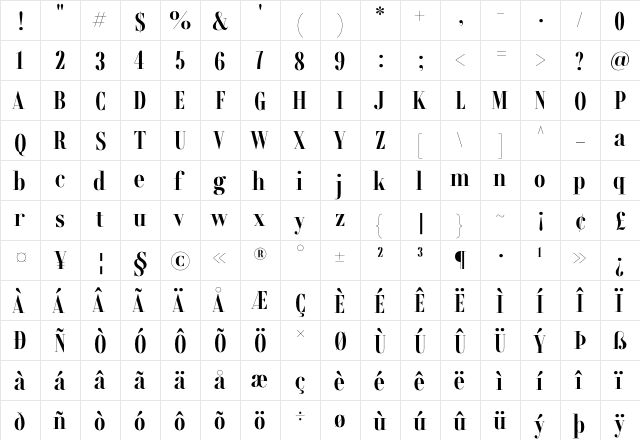
Rondal Bold
Bold ·  Daler Mukhiddinov ·
DesignerDaler Mukhiddinov
Design Context for Rondal Typeface
Rondal takes a measured approach to typography — its balanced proportions and neutral character make it a reliable workhorse for both digital and print work. Its bold stroke weight gives it real presence on the page.